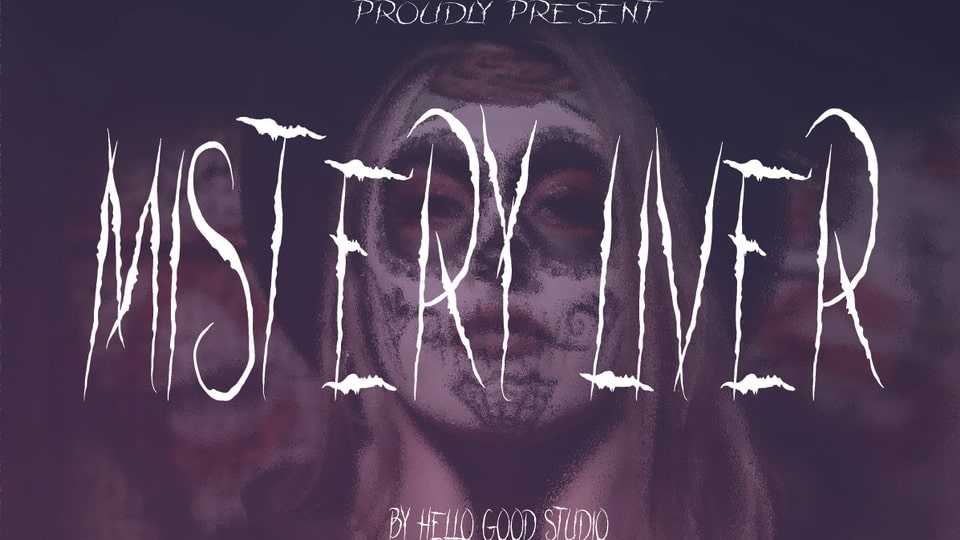
Mistery Liver Font › Fontesk – Download Grátis
Download Mistery Liver font, a tall and scratched horror typeface, perfect for designs that demand to invoke fear and suspense. Each character is meticulously crafted with jagged edges, eerie curves, and a haunting aura.